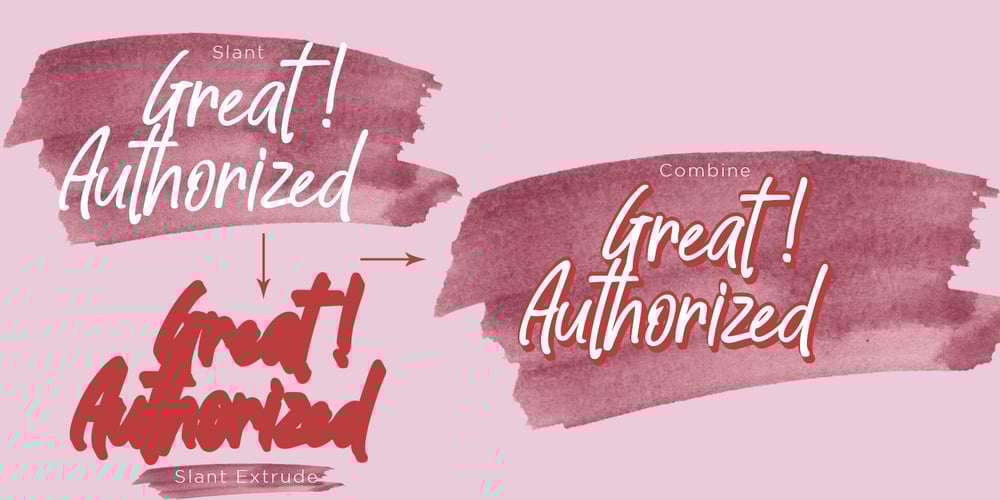
Great Authorized Font Family was designed by Sarwo Edhi Prayitno and published by Haksen. Great Authorized contains 6 styles and family package options. Great Authorized comes with natural taste of handwritten script. When you use with this font, I believe you will enjoy the sensation of the natural feel of this font, equipped with swashes and extrude features make the display even stronger for your projects such as posters, logos, advertisements, book covers and all brands for your requirement. I recommend for you to use photoshop or illustrator to make design with this font and let see when you will say WOW 🙂 So what include when You want to use them ? – OTF – Ligatures – Numbers + Punctuation – Non-English support – Swashes – Extrude Please contact me if anything question,I’m glad to help 🙂 Happy Designing, Haksen